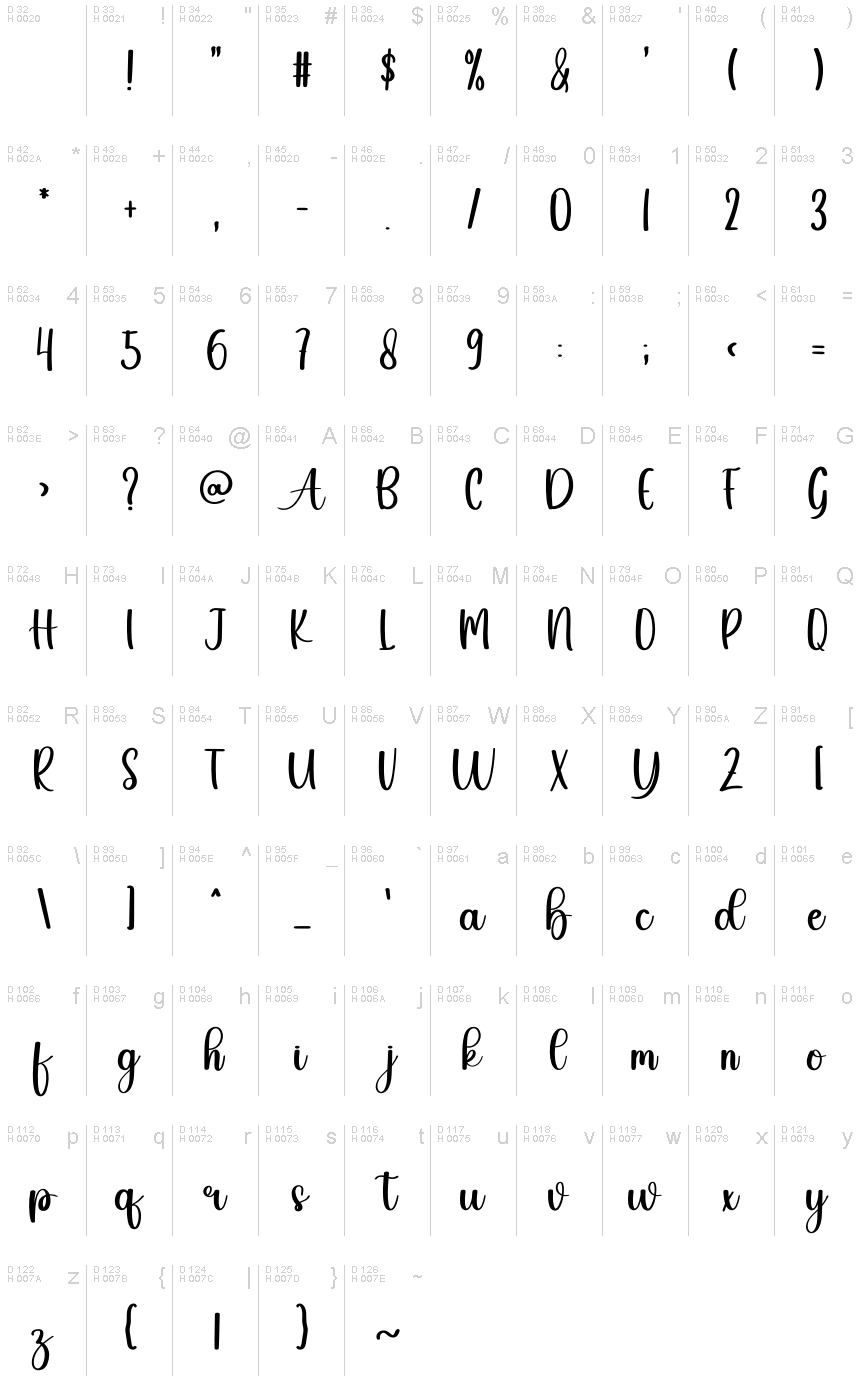
Always Chubby
Always Chubby font by PiPi Creative captures the delightful essence of handwritten styles with its playful curves and bold strokes. This free font radiates charm, effortlessly infusing personality into any project. Its whimsical flair makes it ideal for crafting logos, invitations, or greeting cards where a touch of creative warmth is desired. Designed with a pronounced, expansive character that stands out, Always Chubby is perfect for those seeking to make their text both engaging and visually striking.